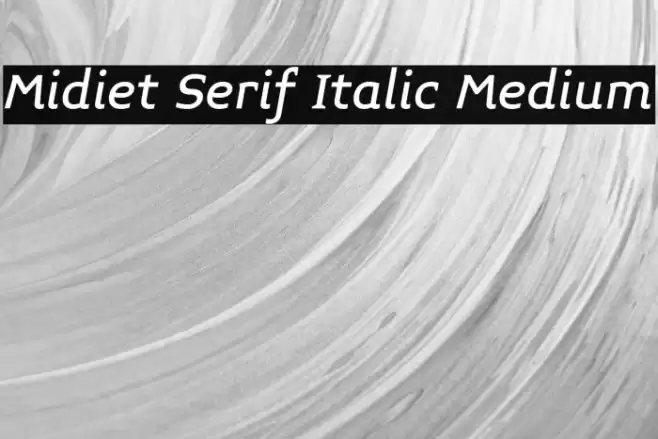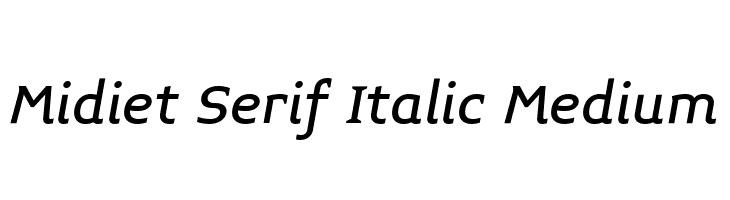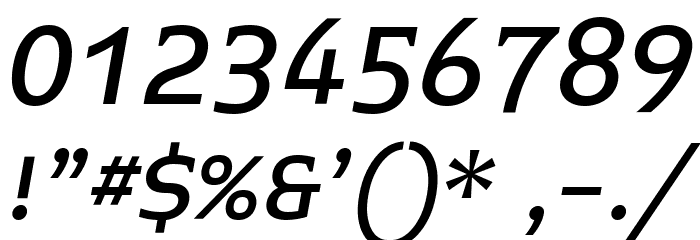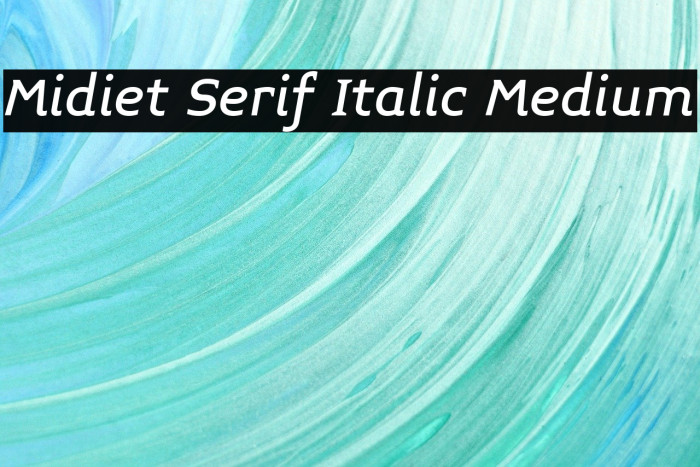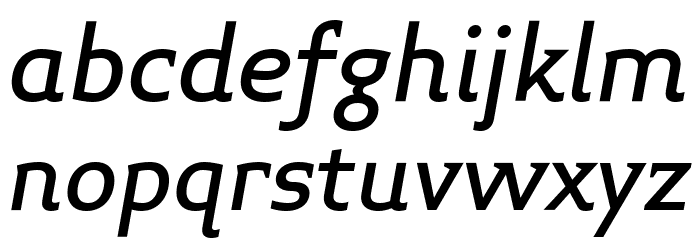
Midiet Serif Italic Medium Font
Midiet Serif Italic Medium Description
This font features a classic serif style with a modern twist, characterized by its elegant italic form. The medium weight provides a balanced appearance, making it suitable for both formal and contemporary designs. The serifs are subtle yet distinct, adding a touch of sophistication. The italic angle is moderate, offering a graceful slant that enhances readability. The characters are well-proportioned, with a slight emphasis on the curves, particularly noticeable in the lowercase letters. The numerals are clear and consistent, maintaining the font's overall aesthetic. Special characters are thoughtfully designed, ensuring versatility across various applications.
A modern serif font with elegant italics and medium weight from Uncategorized fonts.